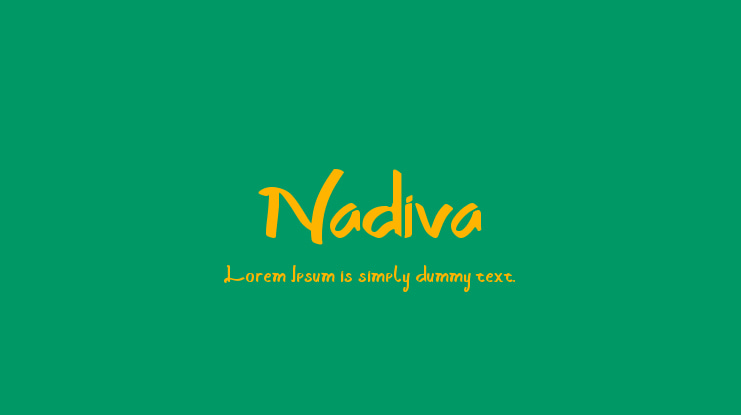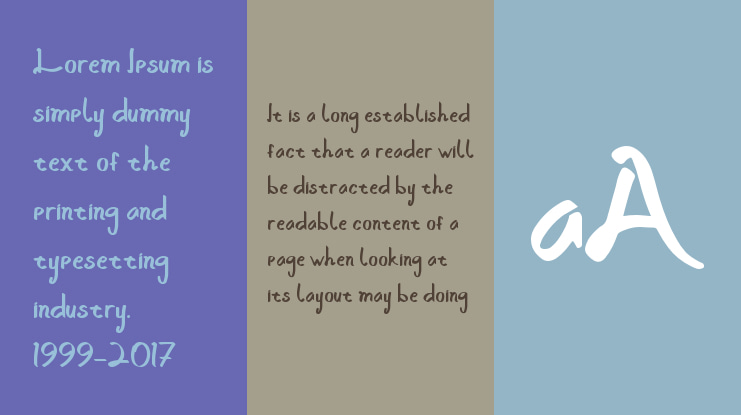
Nadiva Font
new fonts from Kam yaiyu Nadiva display fonts, fonts with attractive capital letters. suitable to help you in making logos, headers, packaging designs, and so on. our fonts are also equipped with multilingual and some alternate. if you like it please pay it thank you